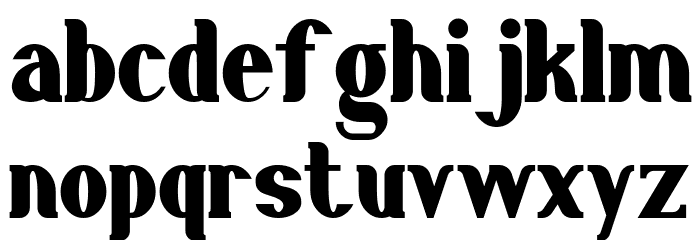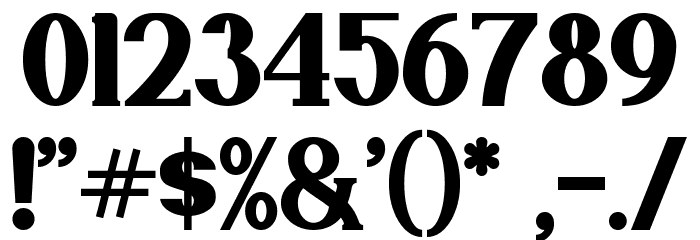
Gillalo Bold Font
This font features bold, thick strokes with a strong presence, making it ideal for attention-grabbing headlines and titles. The characters are well-defined with a slight curvature, adding a touch of elegance to the overall design. The uppercase letters are particularly striking, with a commanding appearance that stands out. The lowercase letters maintain a consistent style, offering a harmonious balance between the two cases. The numerals are robust and clear, ensuring readability in various contexts. Special characters are included, providing versatility for different design needs.
A bold, elegant font with strong strokes and a commanding presence.
- Proposed Projects: Ideal for headlines, posters, branding materials, and any project requiring a bold statement.